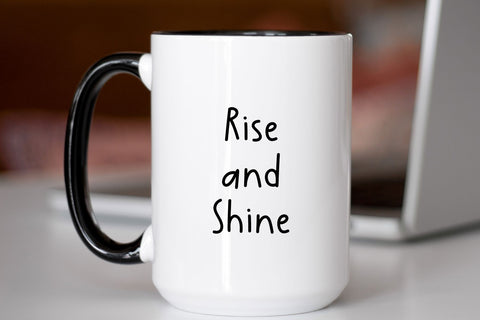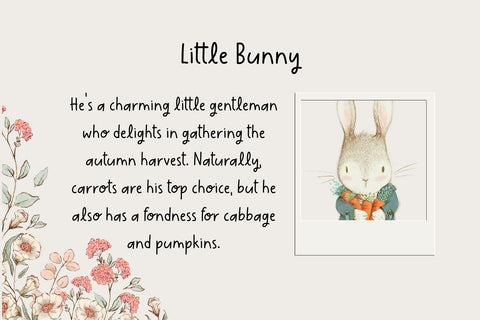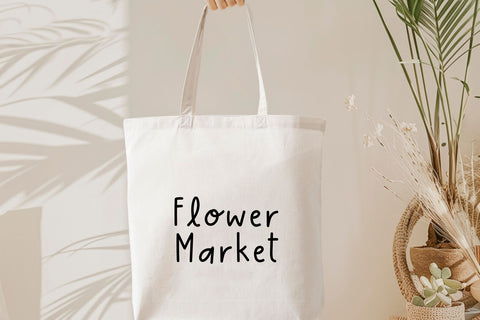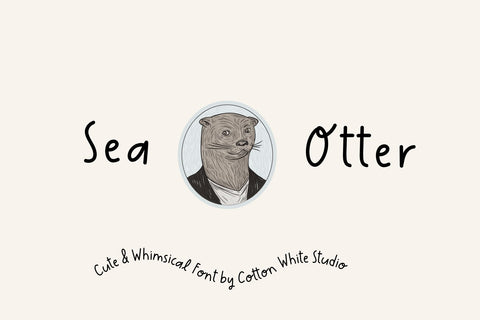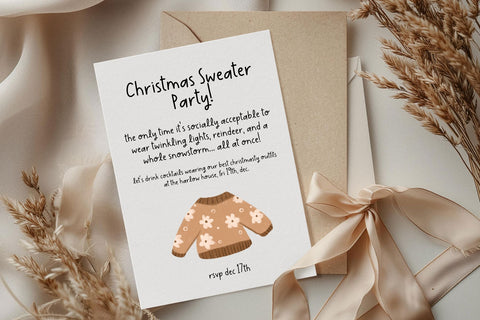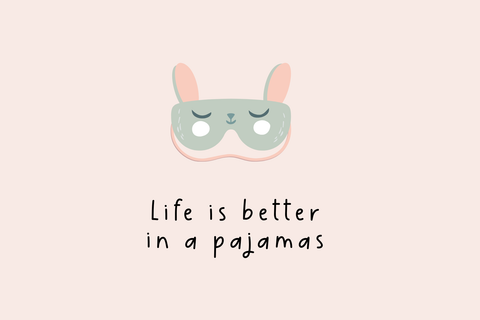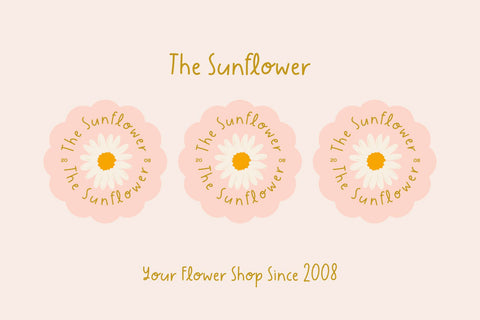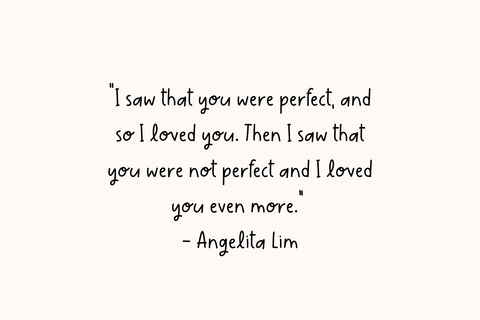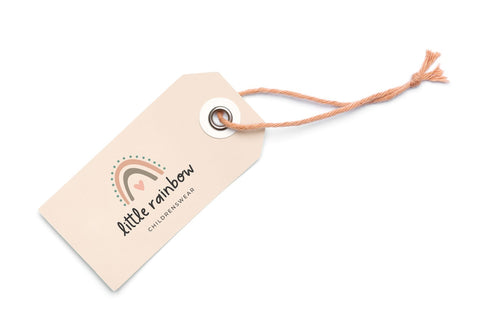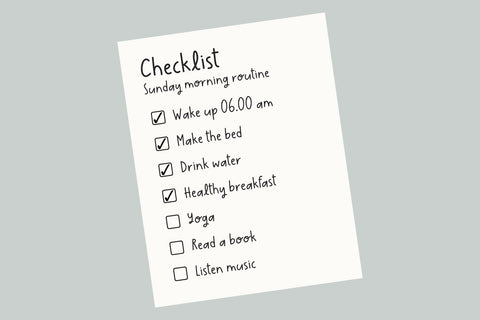
Sea Otter
A cute, little font, perfect to jazz up your digital planner, journal, invitations, note-taking, or anything that requires a handwriting look.
Uppercase Letters
Lowercase Letters
Numbers & Punctuation
Multilingual Support